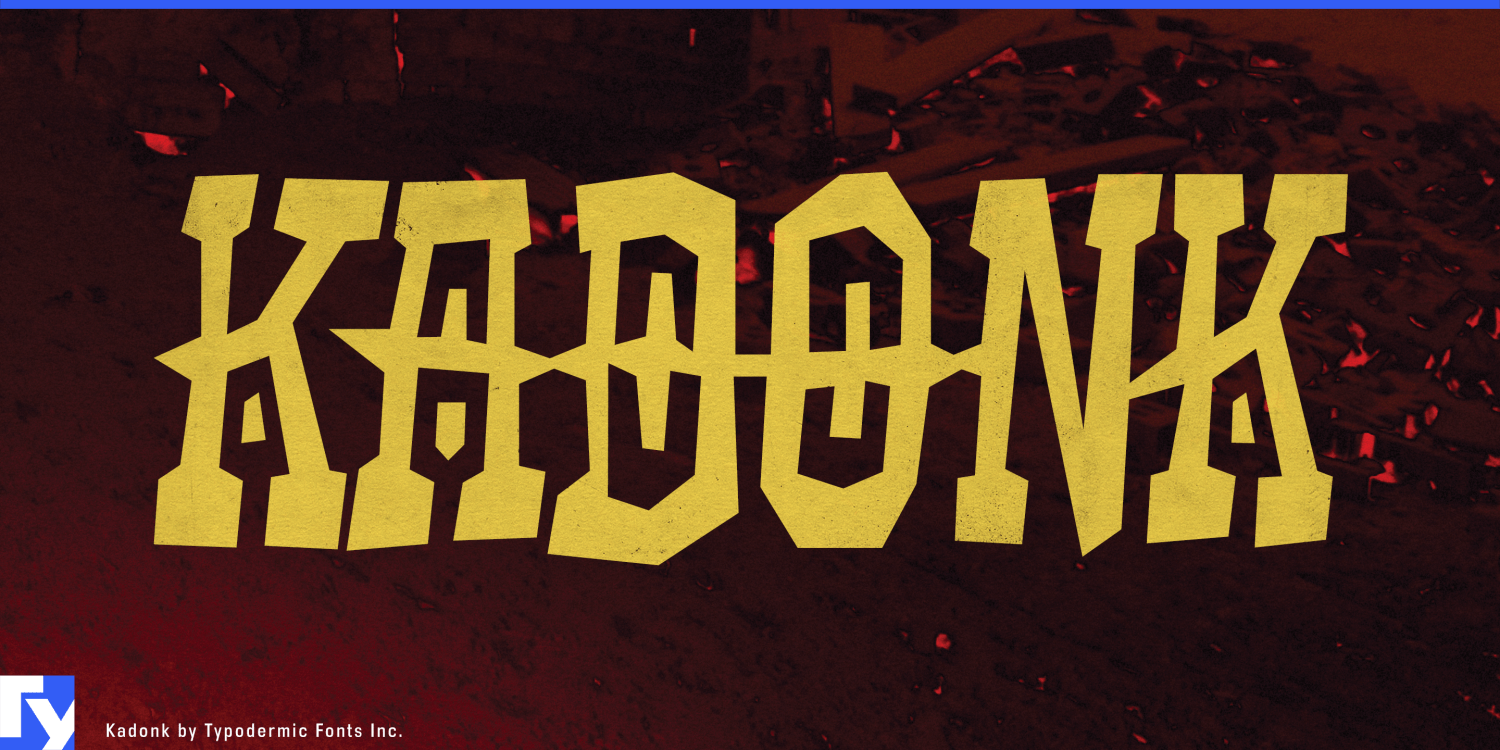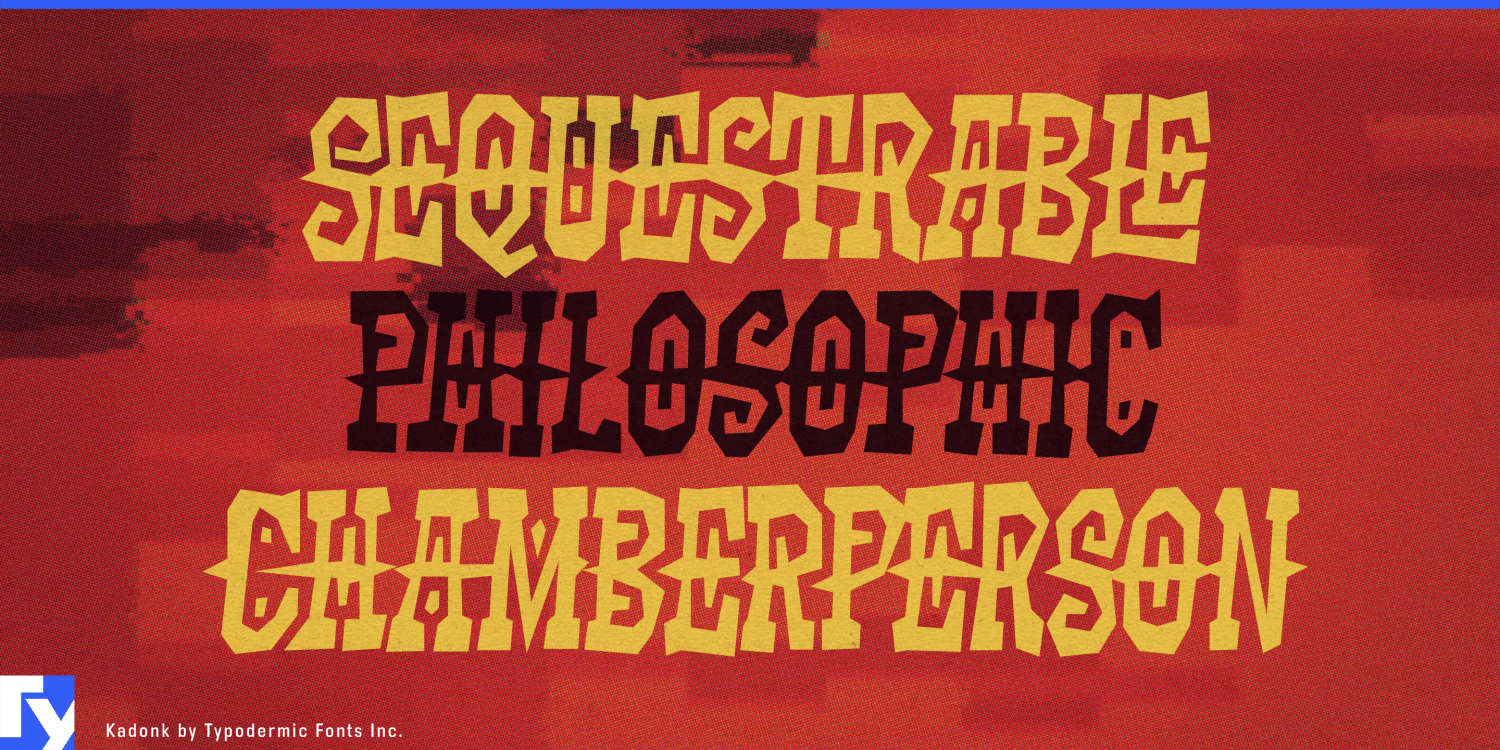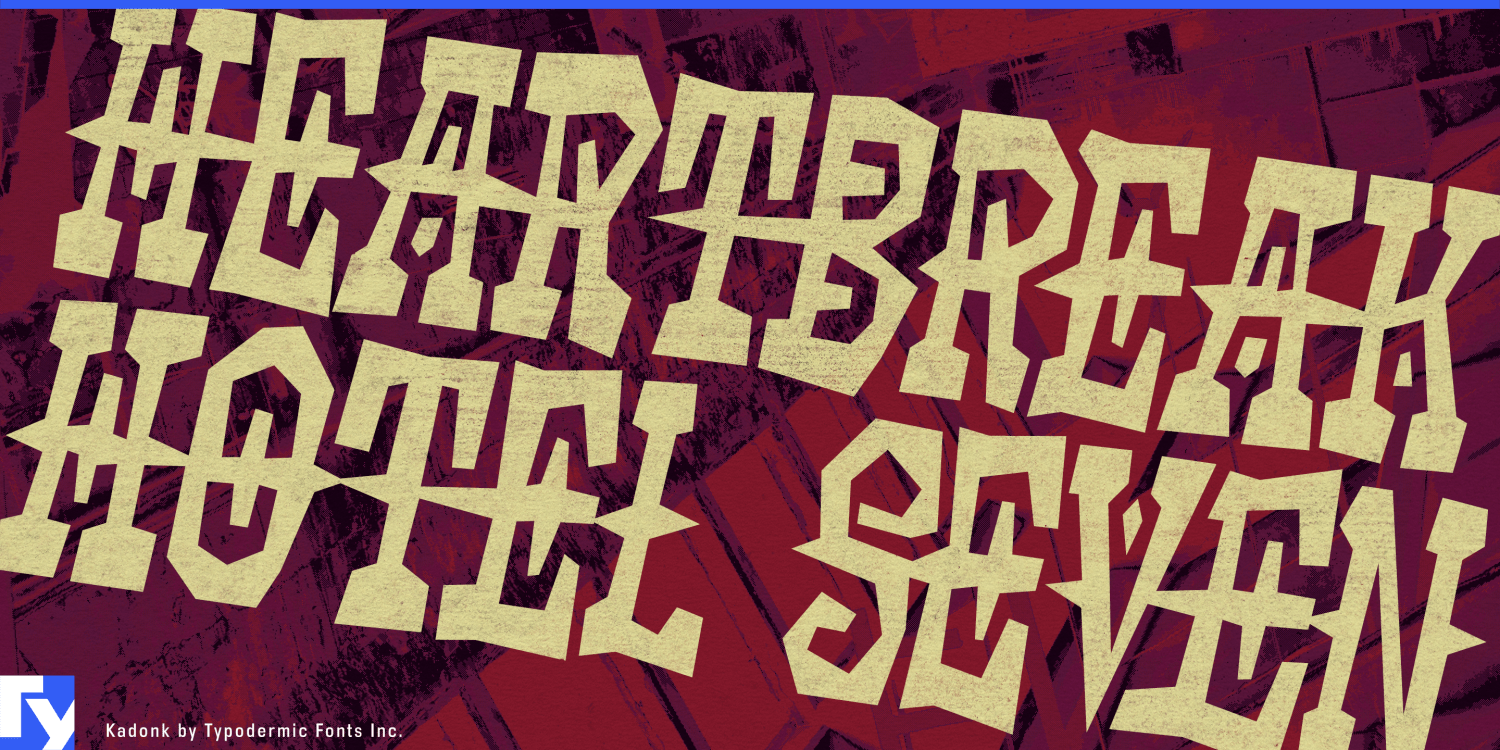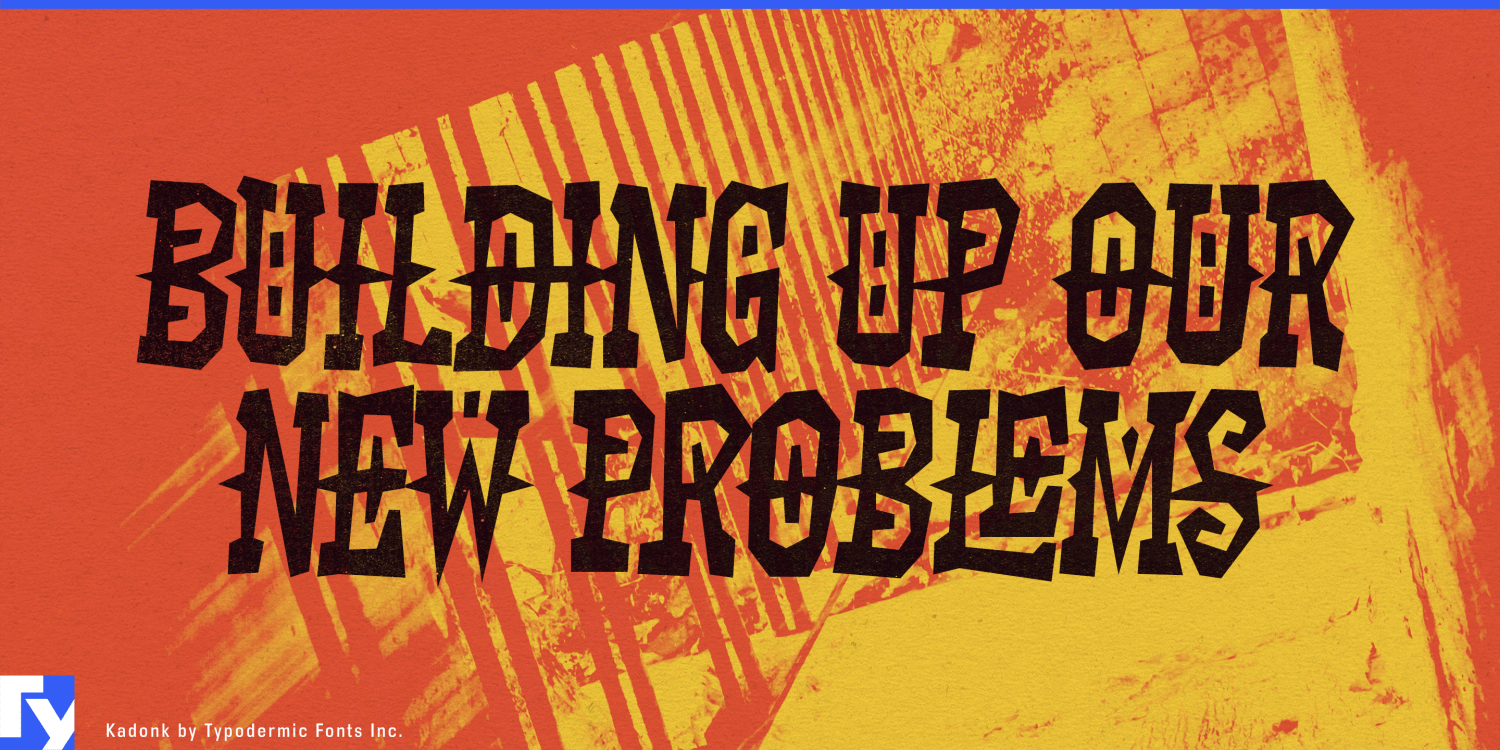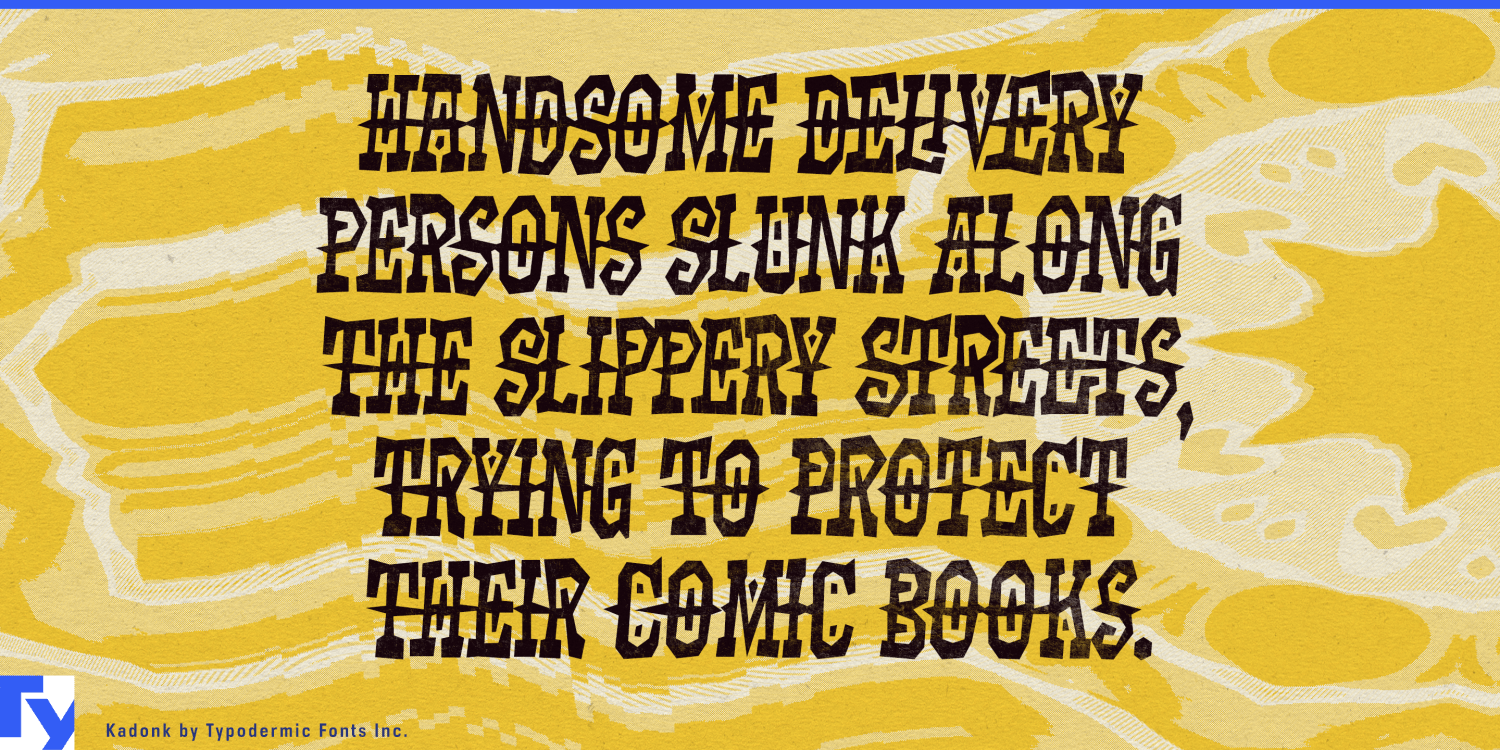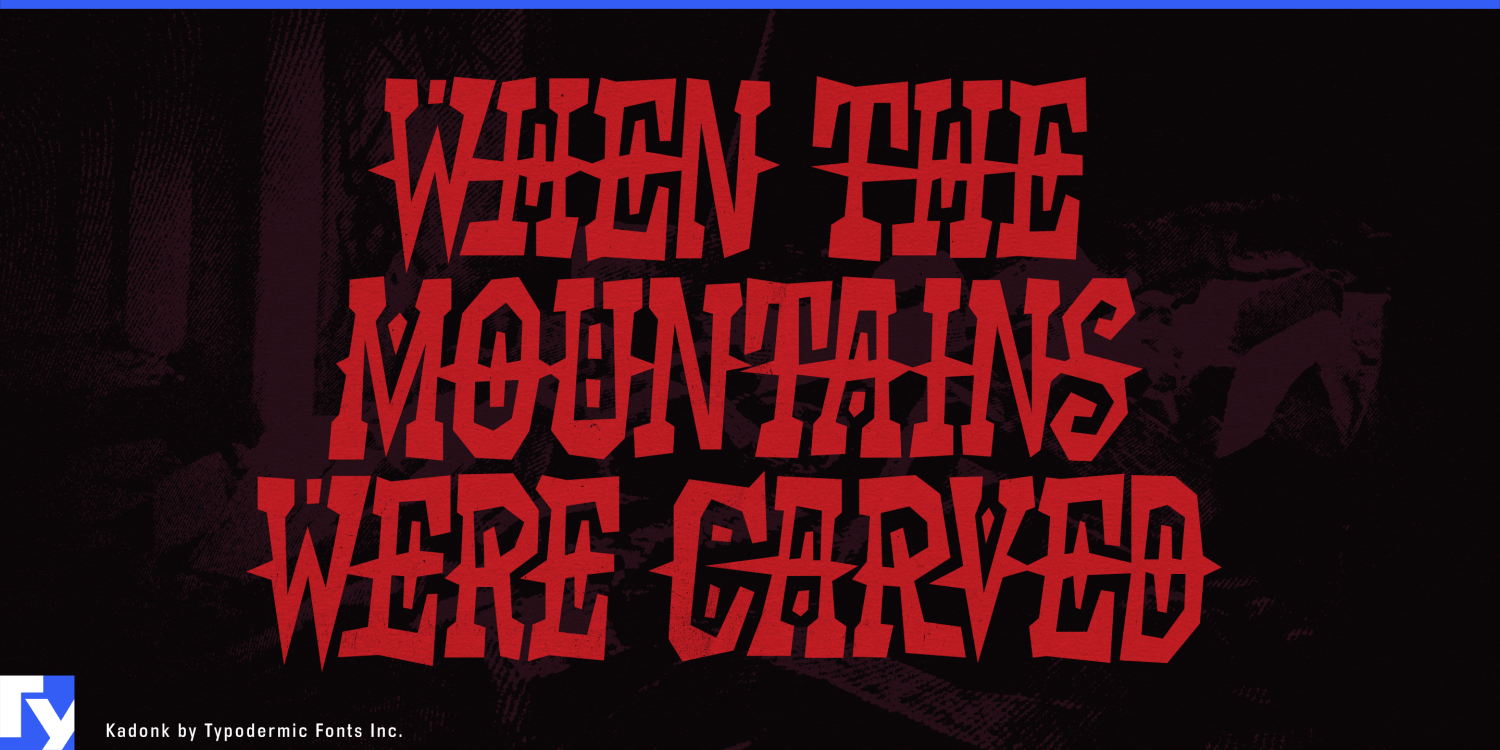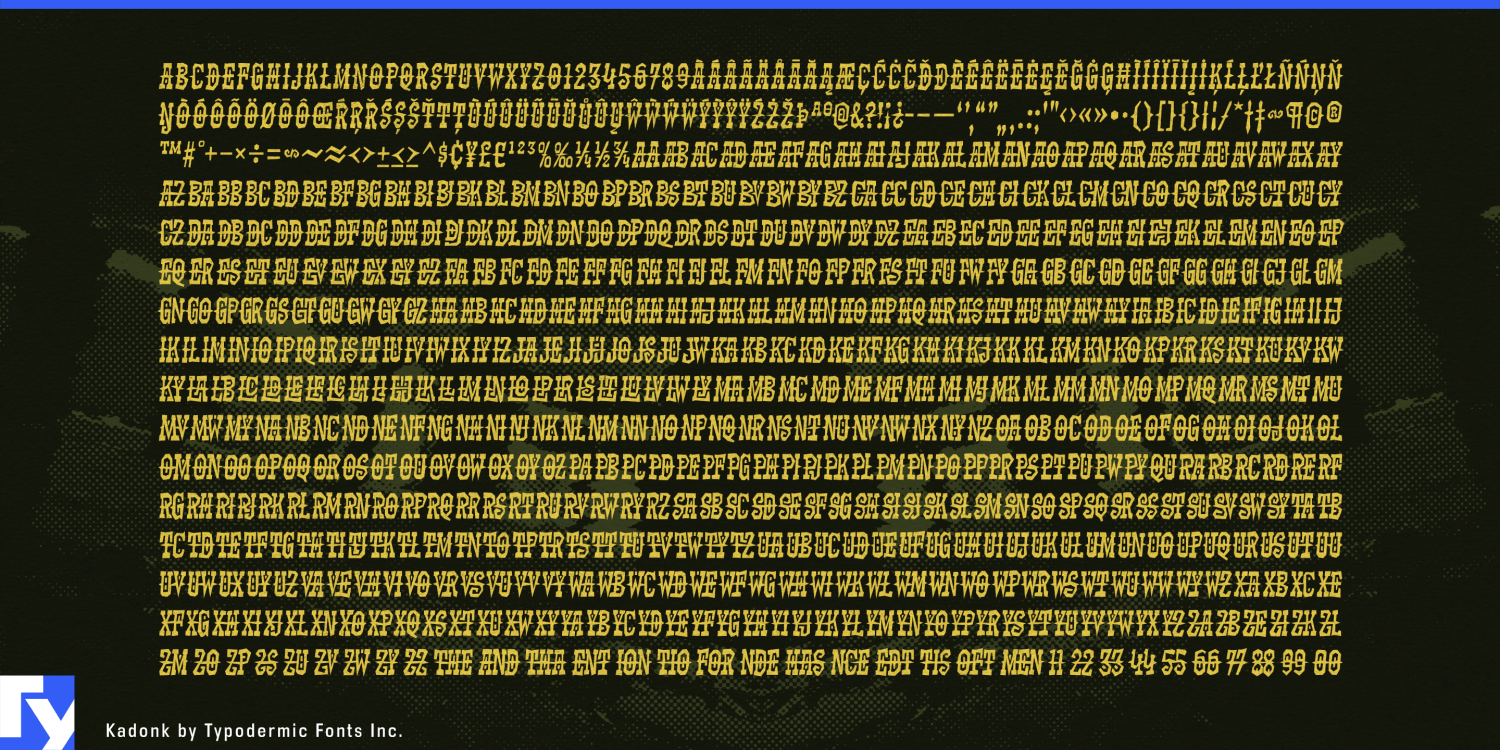
Kadonk
Some rough display fonts try to look dangerous. Kadonk is having too much fun for that. Its spikes, collisions, and warped proportions suggest improvised machinery, homemade armor, and things built from whatever was lying around. It looks less like a metal band and more like somebody found a toolbox, a pile of scrap, and a questionable plan.
The roughness is structural rather than cosmetic. Kadonk’s forms buckle, hook, widen, and occasionally lock together, so a word can feel assembled from mismatched pieces rather than simply distressed afterward. Hundreds of ligatures help resolve collisions between neighboring spikes; some pairs clear one another while others connect into larger shapes. Even in a perfectly clean solid color, the construction remains unstable and strange.
That makes Kadonk especially suited to build-and-battle graphics: robot combat kits, RC off-road vehicles, model machines, cardboard engineering projects, maker challenges, and science-fair contraptions. The same energy works for laser-tag arenas, obstacle courses, skate and BMX events, climbing challenges, and summer-camp competitions where team names, course zones, badges, and event titles need a little rebellion without drifting into horror or hard-rock seriousness.
Games and toys can push the idea further through junkyard racers, scrap-built robots, creature battlers, cartoon wastelands, goblin machinery, and arena games. Robotics clubs, bridge-building contests, egg-drop challenges, and engineering days benefit from the same approach; Kadonk makes the project name look like part of the contraption.
As an all-caps display face, Kadonk is strongest in compact bursts: machine names, team names, warnings, badges, faction marks, package titles, and event graphics. Its personality comes from roughness built into the letters themselves; not scratches printed on top, but an alphabet that looks as though it was bolted together under questionable supervision.